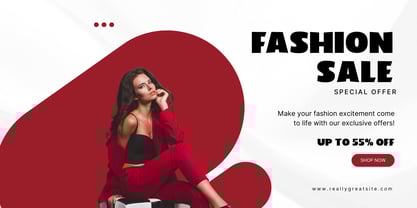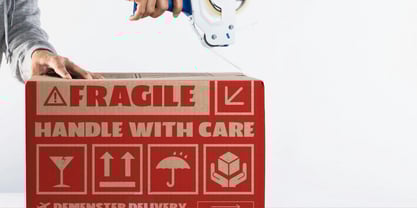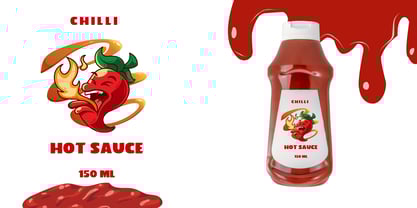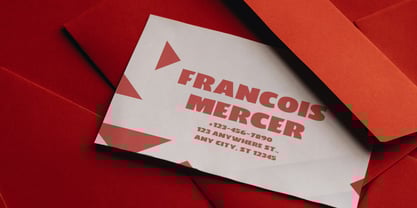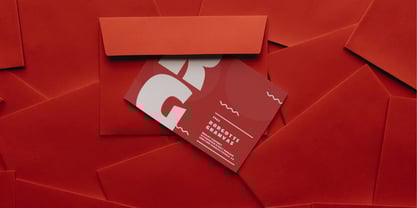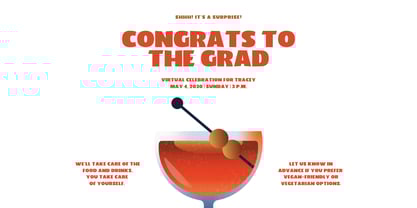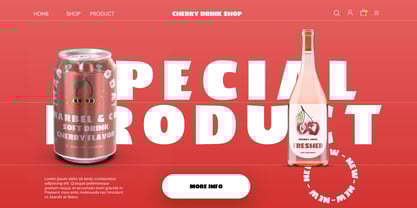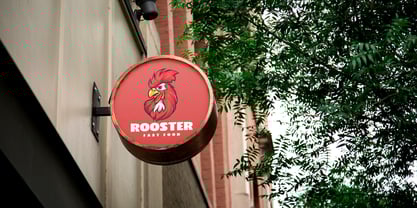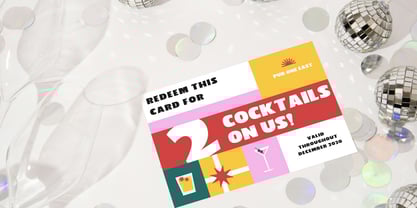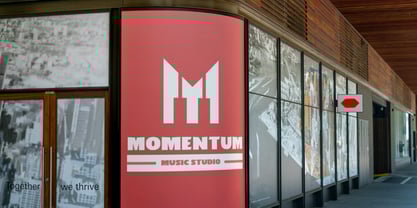
Cherry Bavarian
Cherry Bavarian is a sans serif display font characterized by bold and all caps, designed to give a bold and strong impression. This font is ideal for headlines, posters, logos, and branding, delivering a combination of modernity and elegance that makes it flexible for a variety of design needs. Enhance the visual appeal of your project with clear, sturdy, and professional.